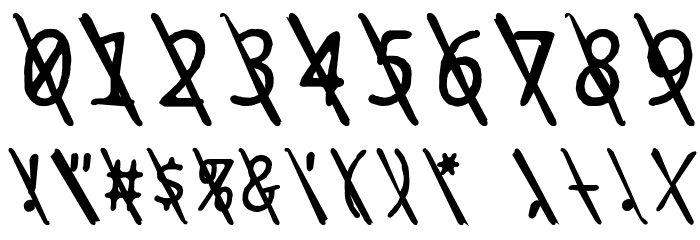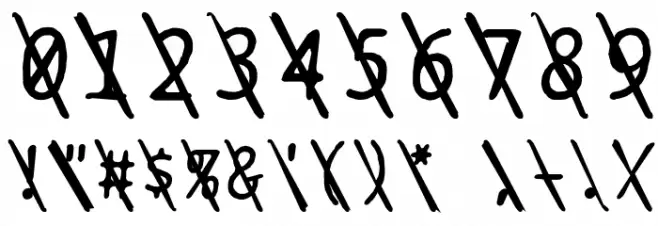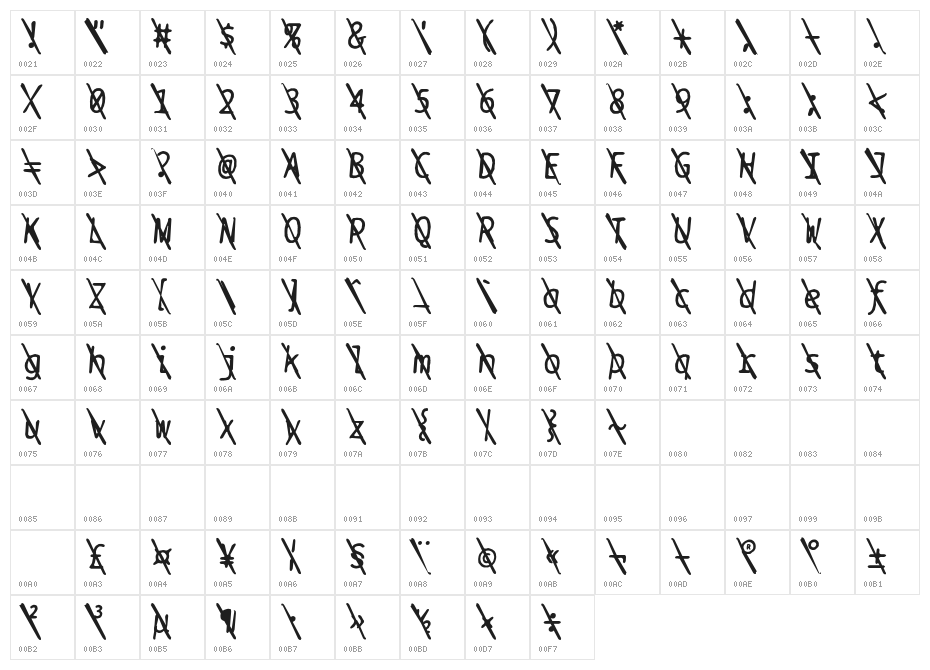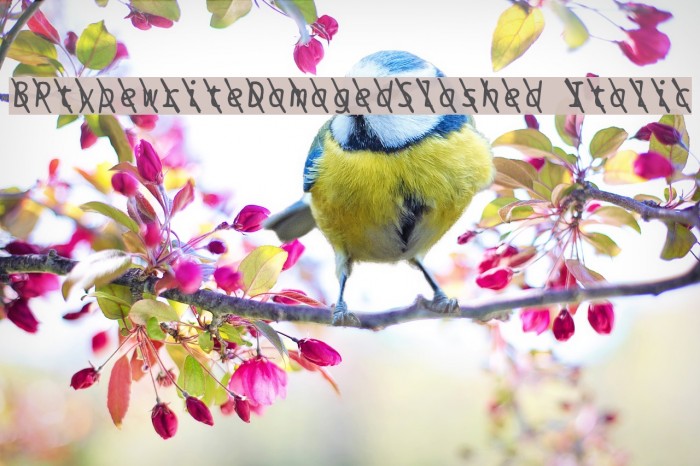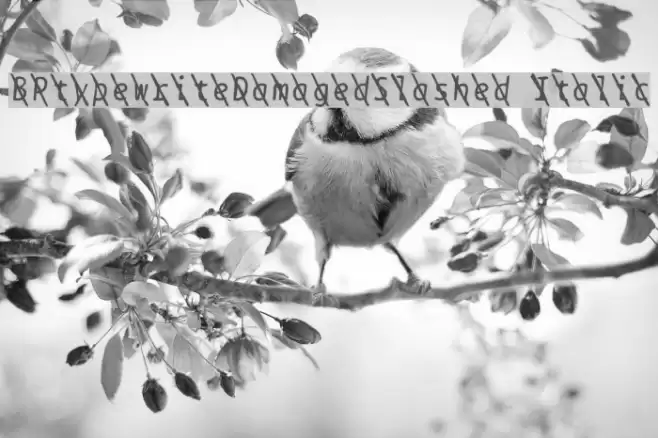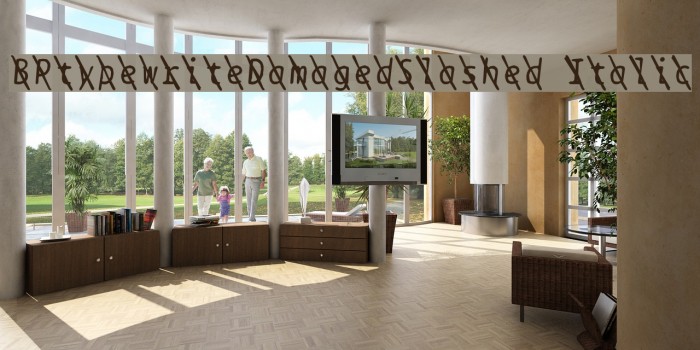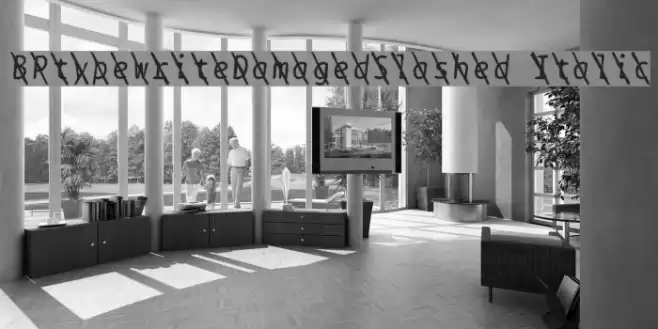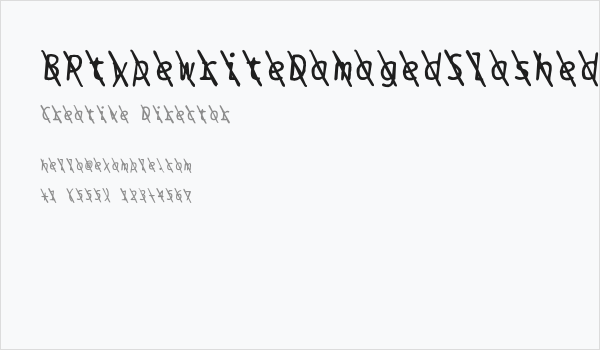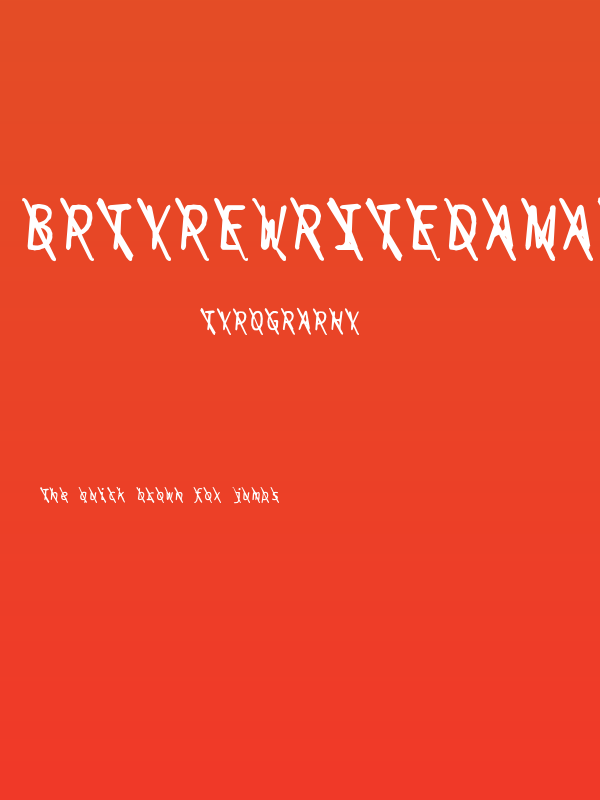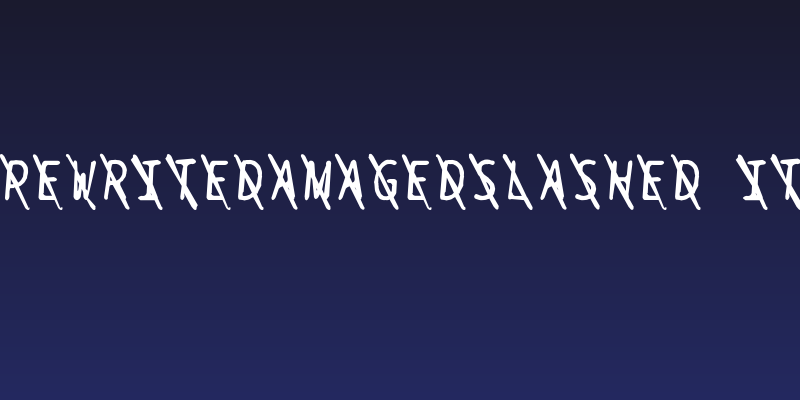
BPtypewriteDamagedSlashed Italic Font
BPtypewriteDamagedSlashed Italic Description
This font features a unique and edgy design with a slashed, damaged appearance. The characters are italicized, giving them a dynamic and forward-leaning posture. Each letter is distinct, with sharp angles and irregular strokes that create a sense of movement and urgency. The uppercase and lowercase letters maintain a consistent style, while the numbers and special characters follow the same slashed theme. This font's bold and unconventional look makes it stand out, offering a modern twist on traditional typewriter fonts.
| Overall Style | Modern, Grunge |
| Proposed Projects | Ideal for projects requiring a grunge or distressed aesthetic, such as album covers, posters, or edgy branding materials. |